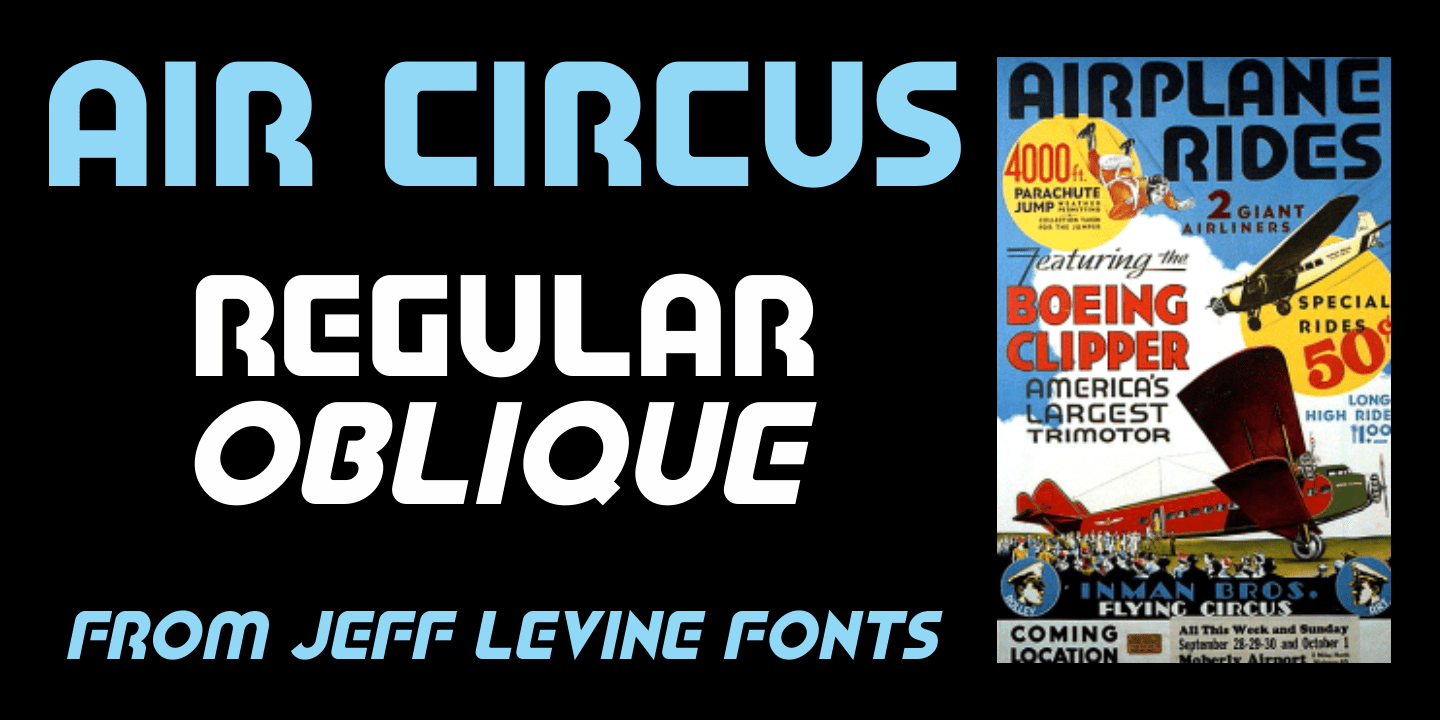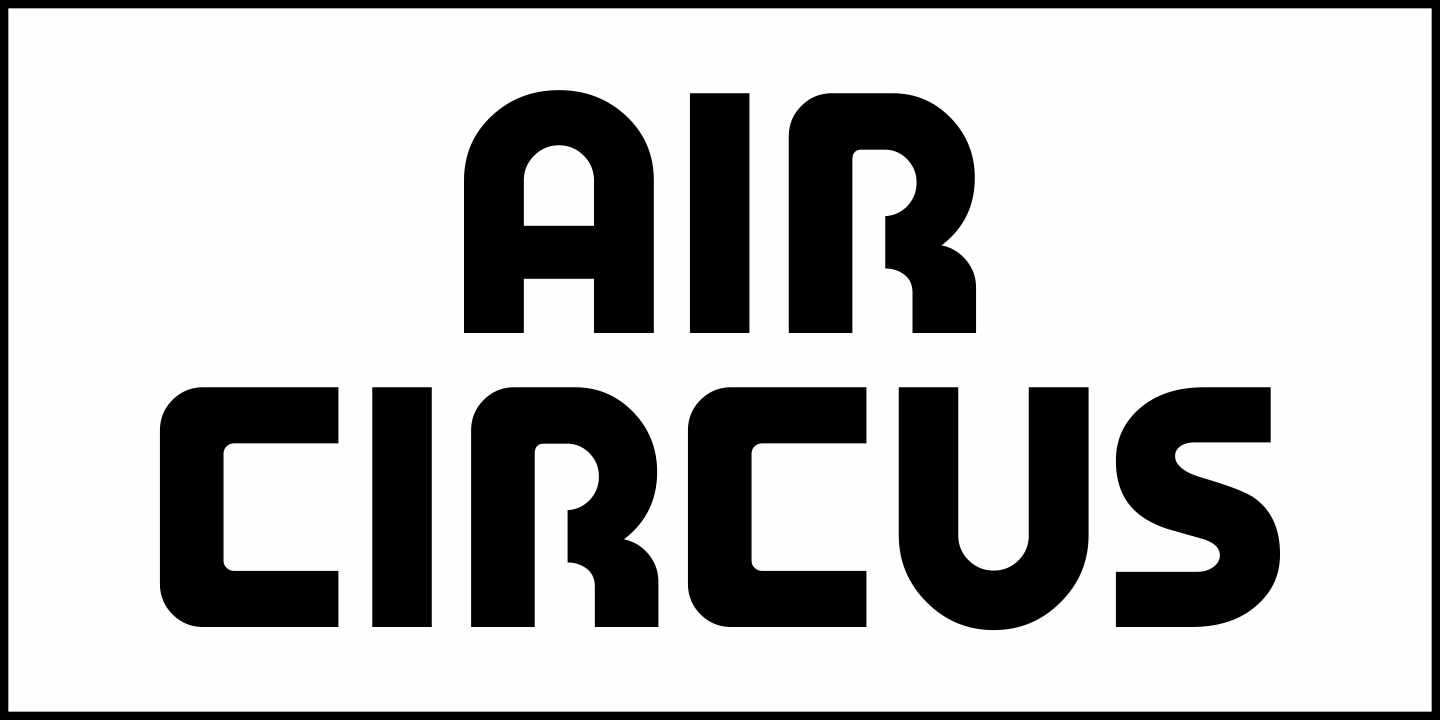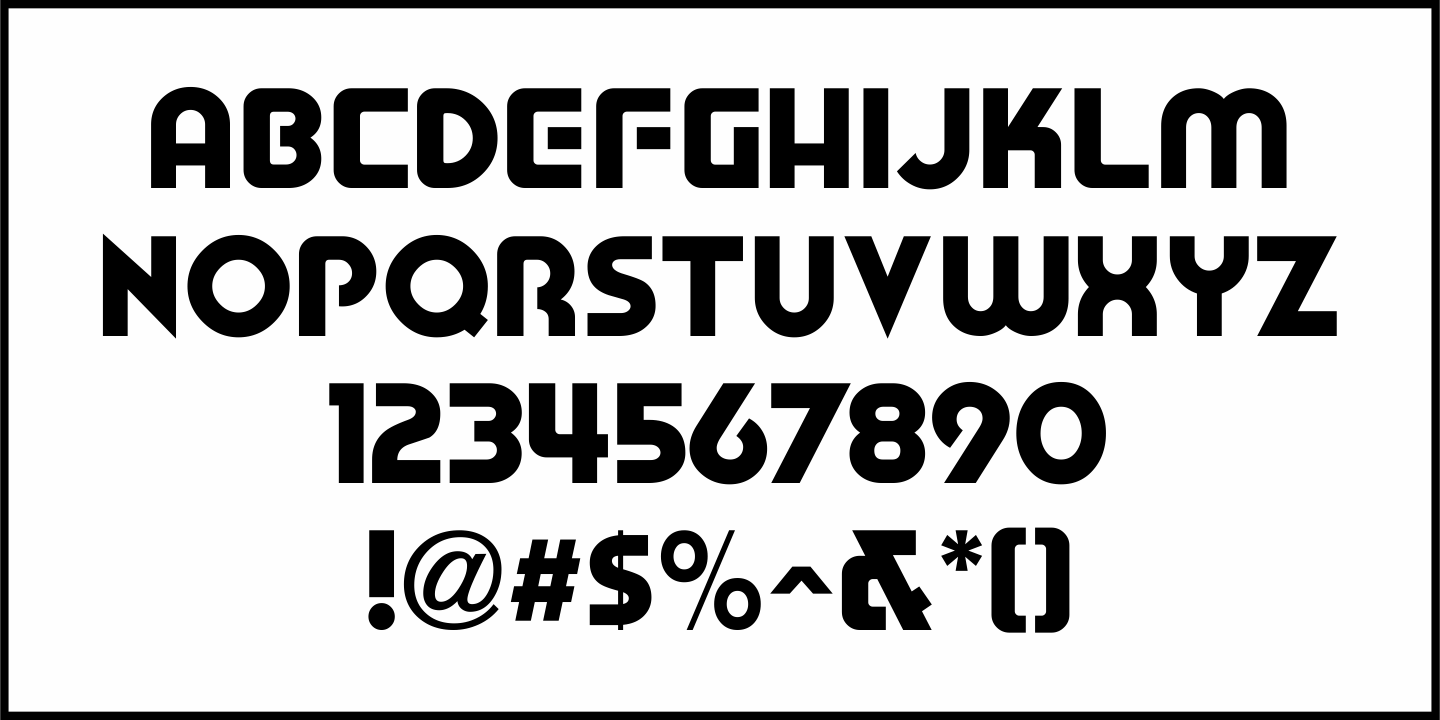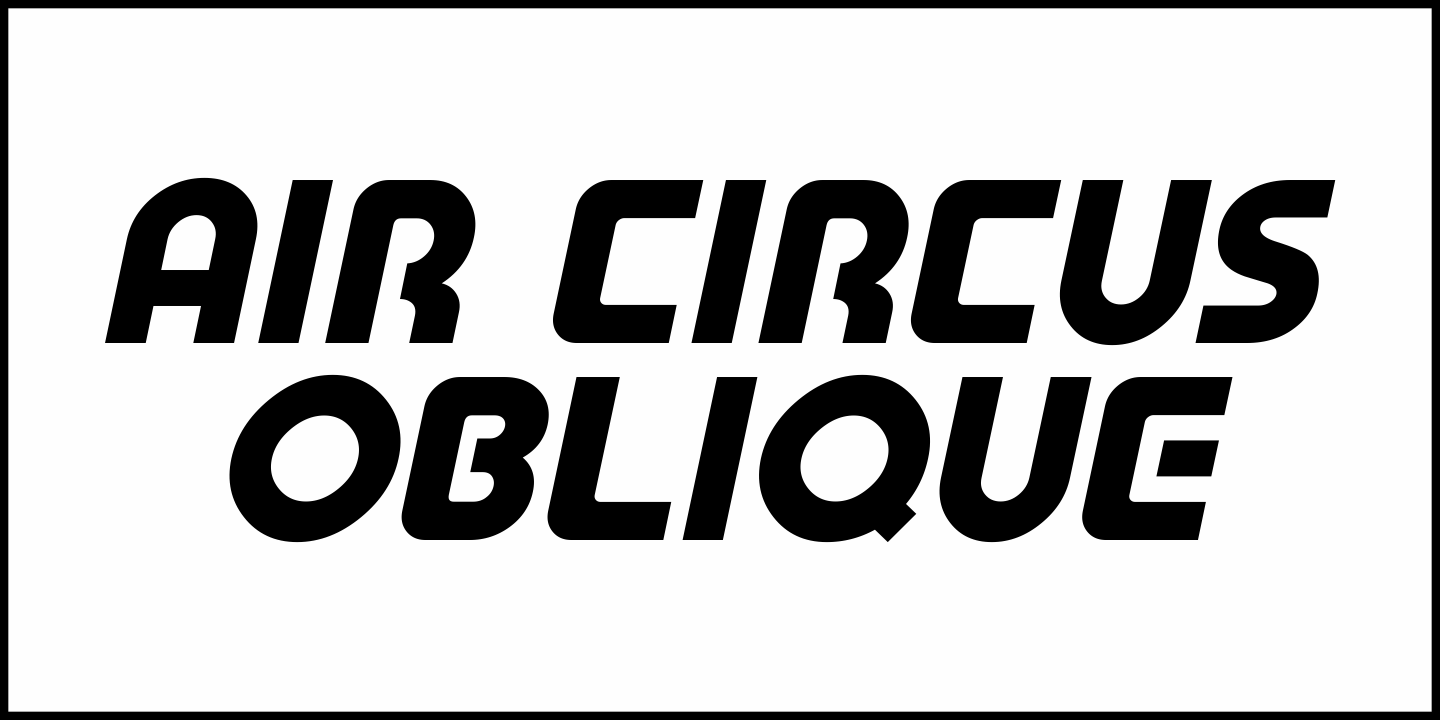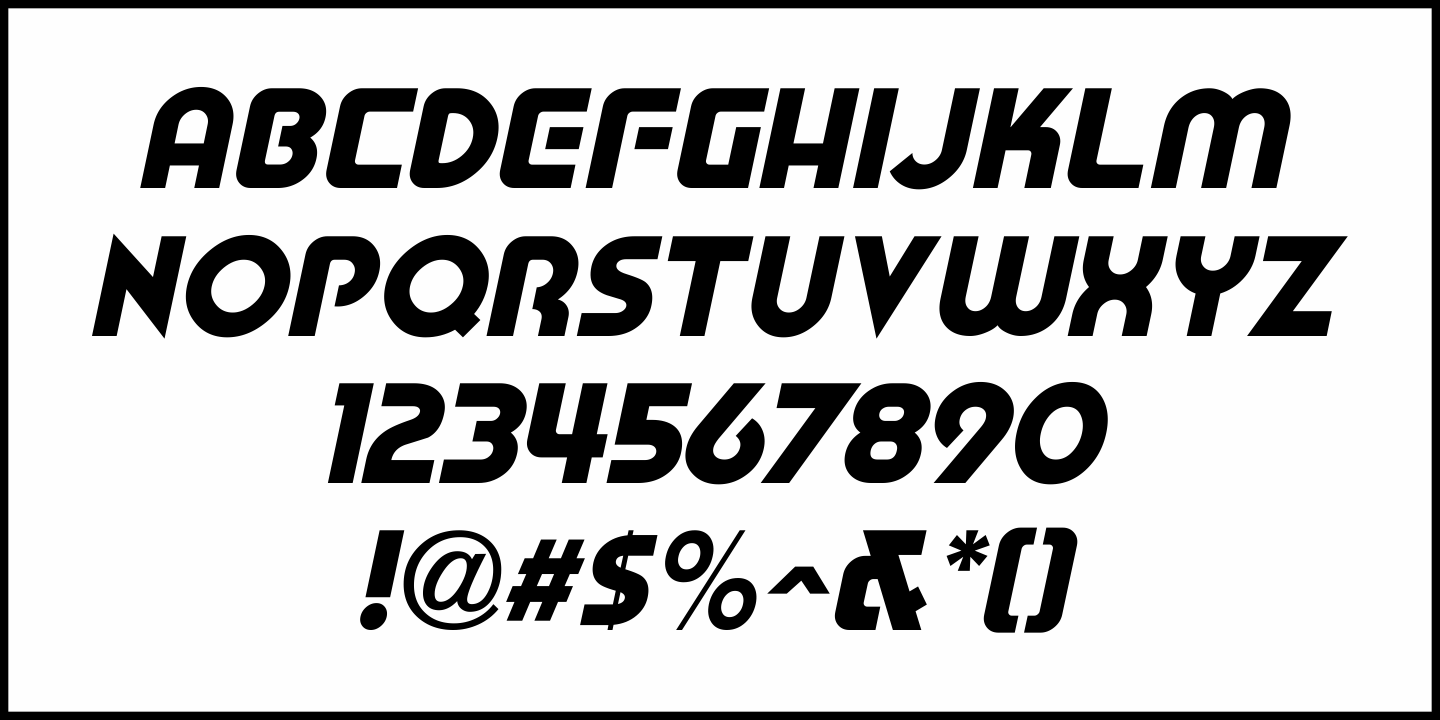
Air Circus
A 1930s advertising poster for the Inman Brothers Flying Circus offered up an interesting hand lettered Art Deco design that’s a cross between both squared and rounded character shapes.
Because of it's 'futuristic look', the resulting type style can also lend itself to 1970s and 1980s retro projects as well as those from the 1930s and 1940s.
Now a digital font, Air Circus JNL is available in both regular and oblique versions.
A “Flying Circus” is a troupe of ‘barnstormers’ (stunt pilots) who performed aerial tricks either individually or as a team along with selling airplane rides to the general public.